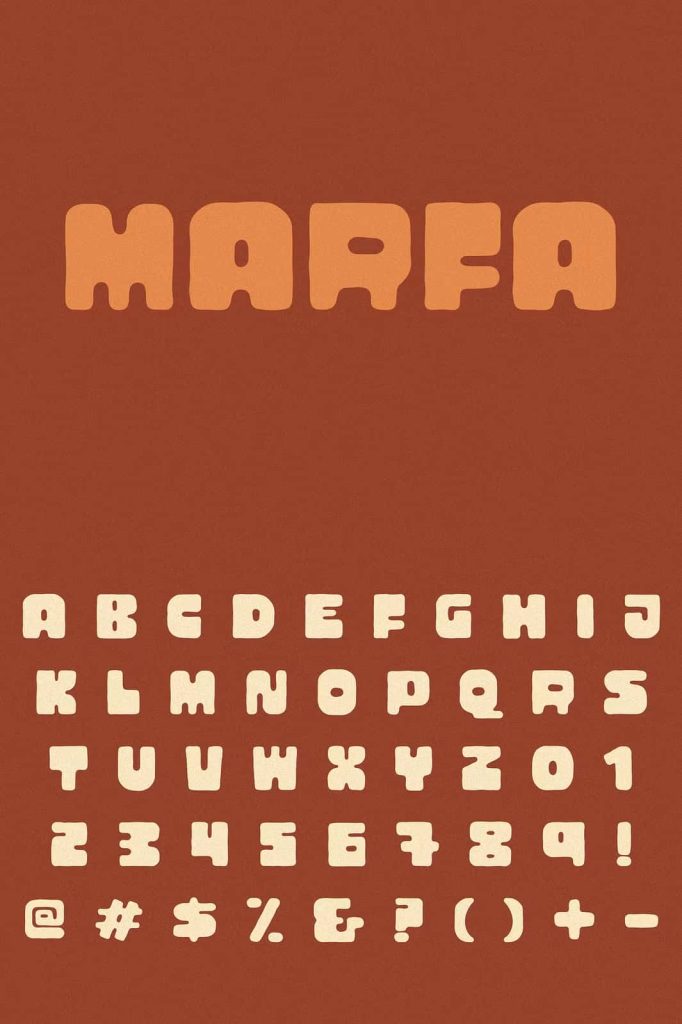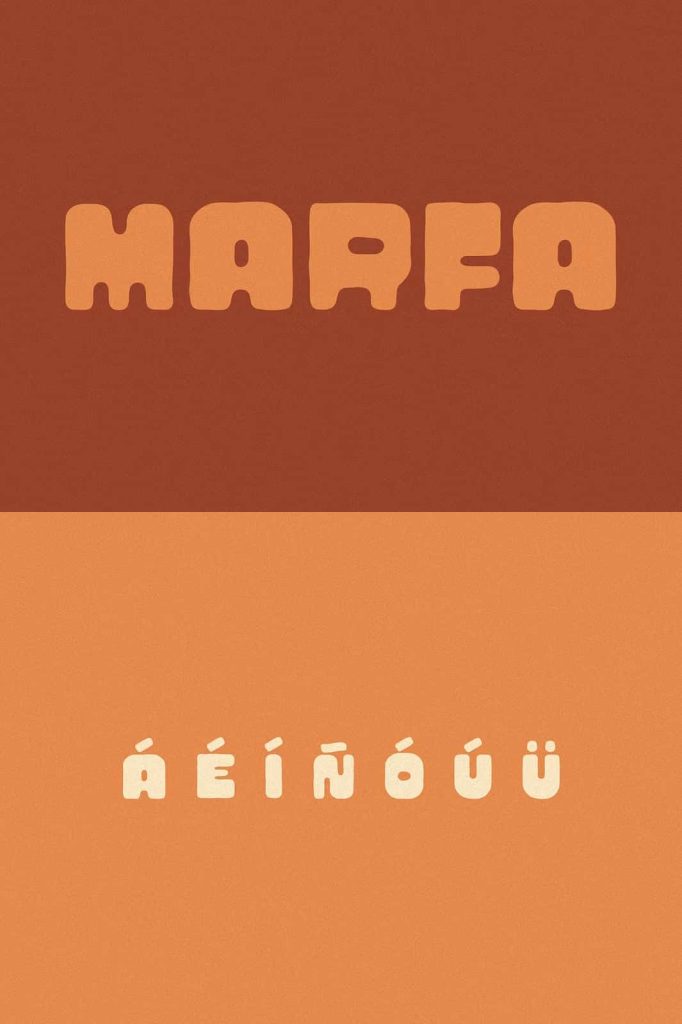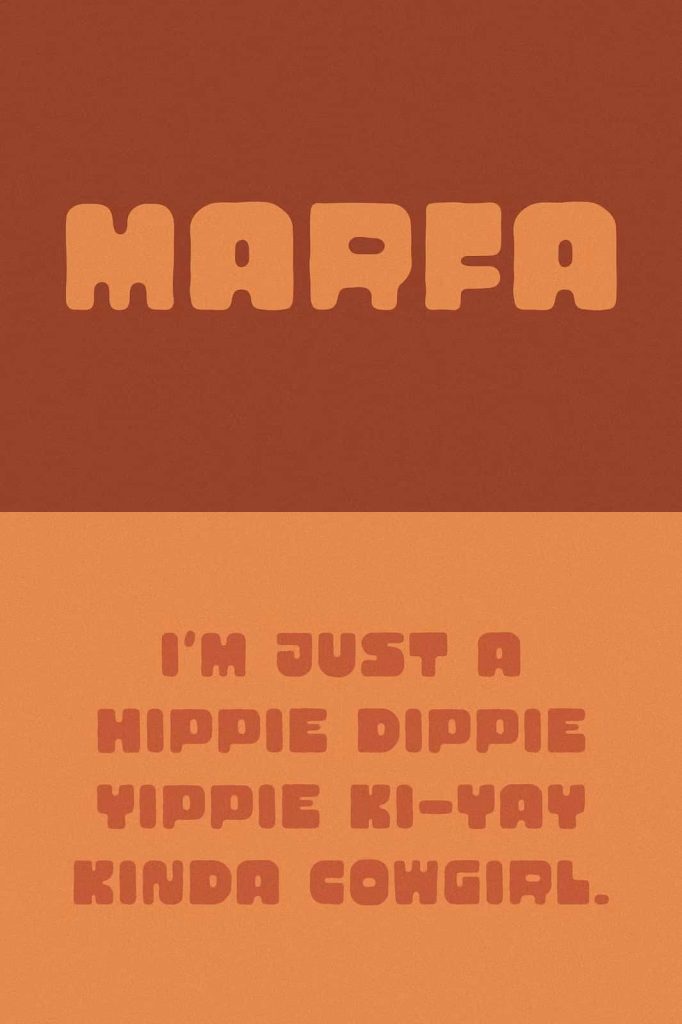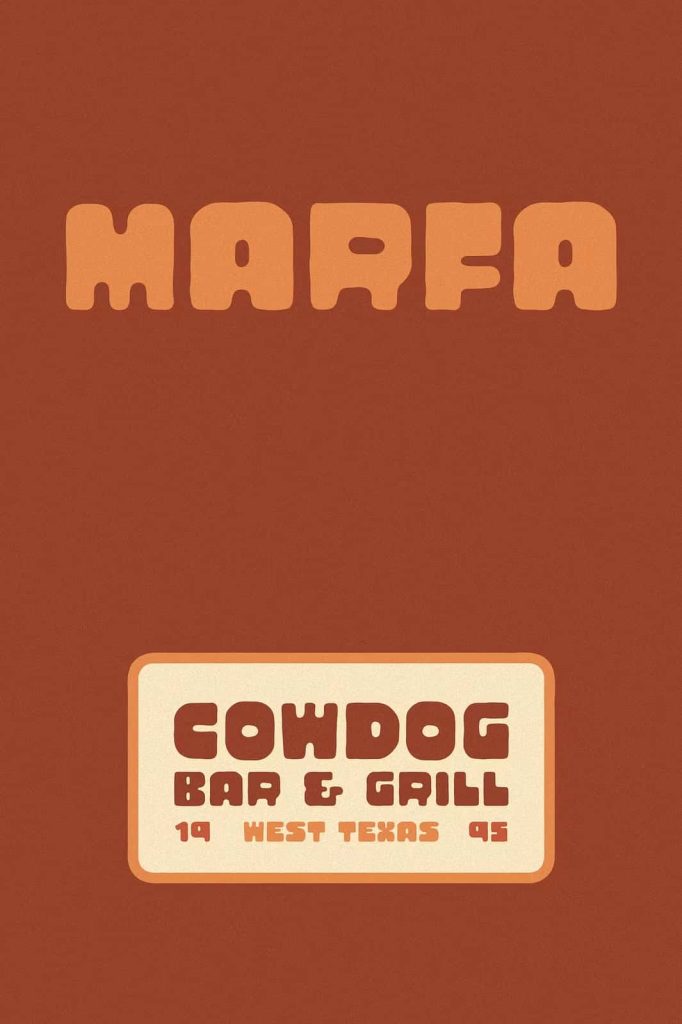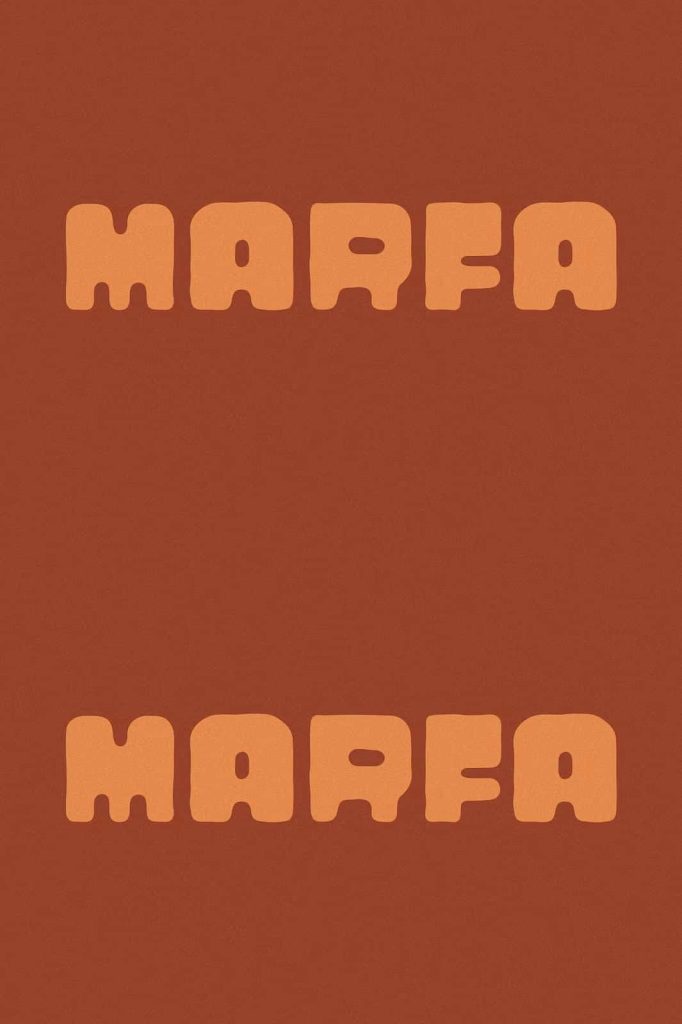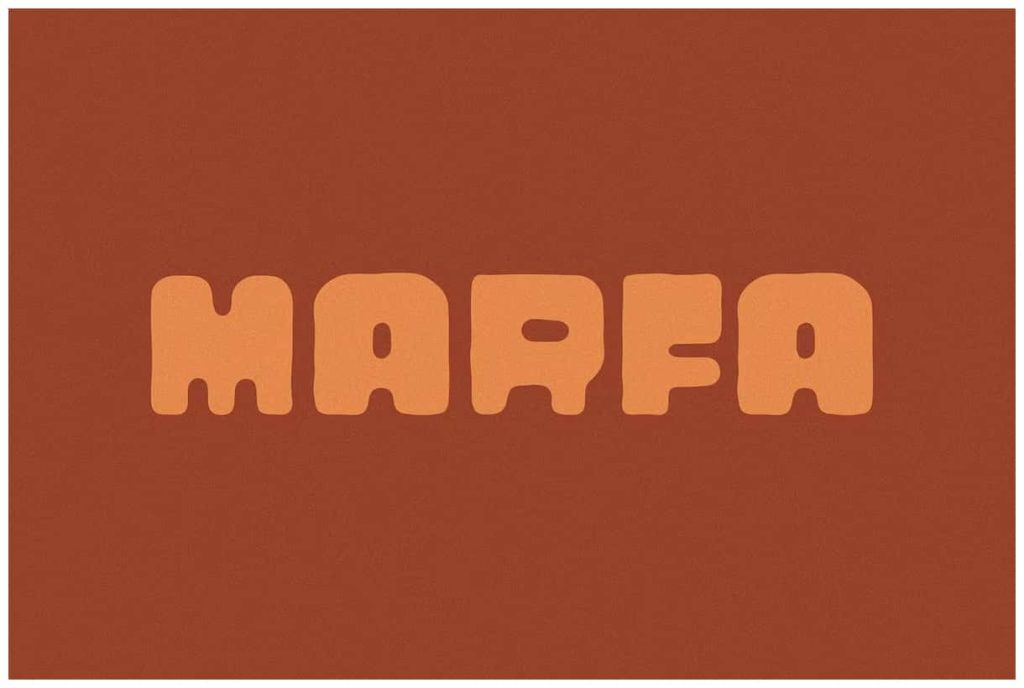
MARFA by Ocotillo Design StudioleastedMay 15, 2025Fonts Marfa is a groovy and hand-drawn typeface. This typeface is all caps and adds a hand made retro feel to designs. Download